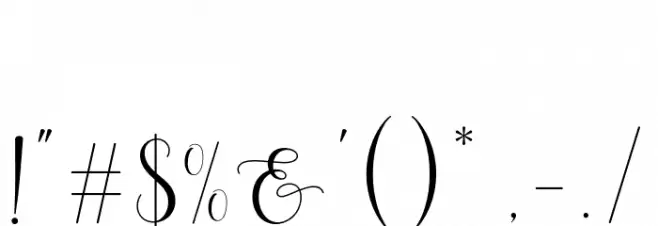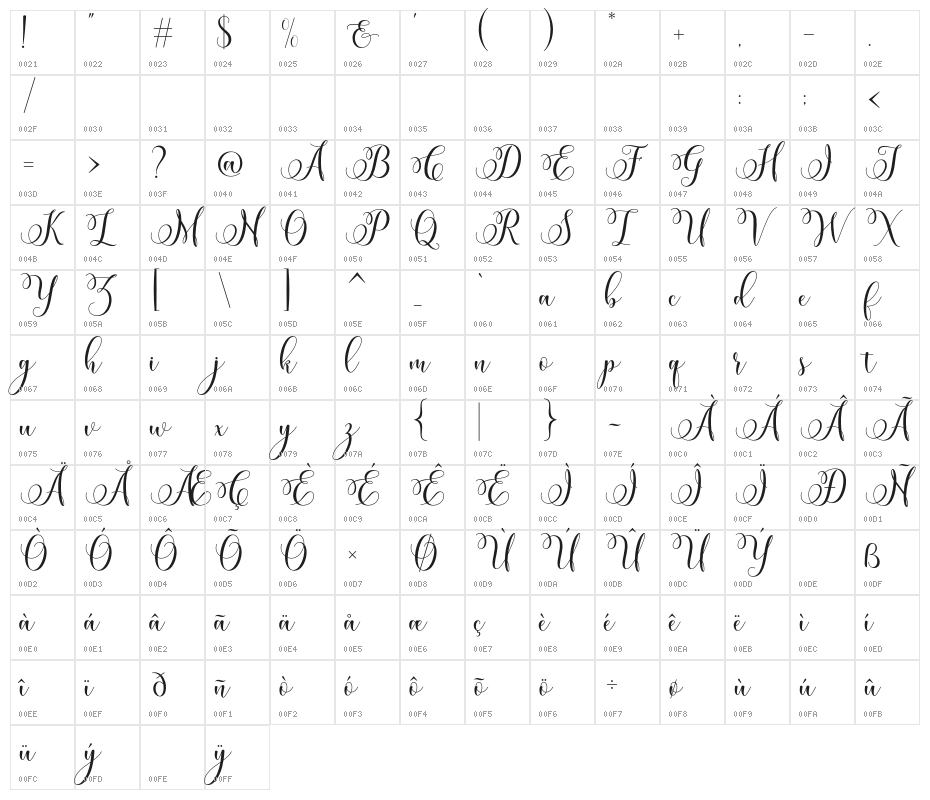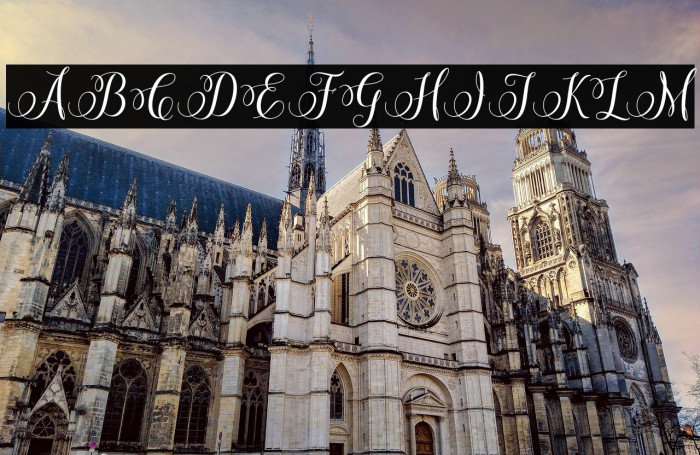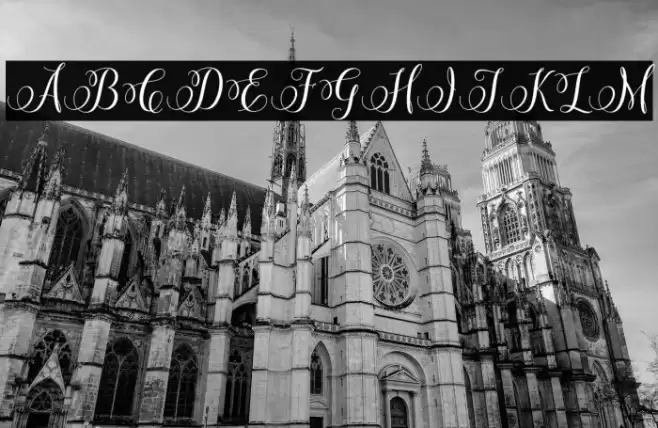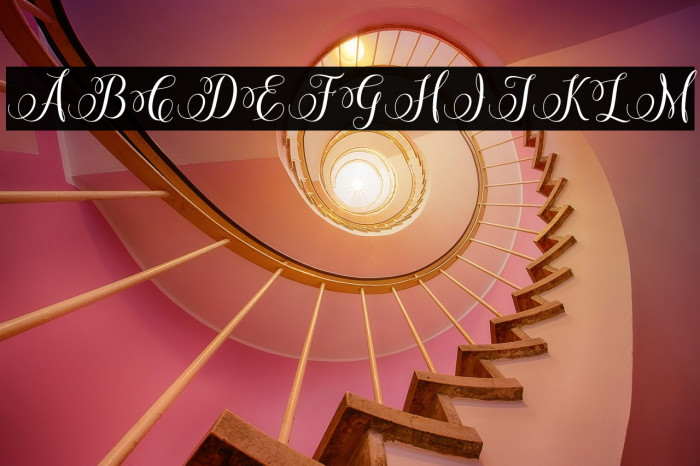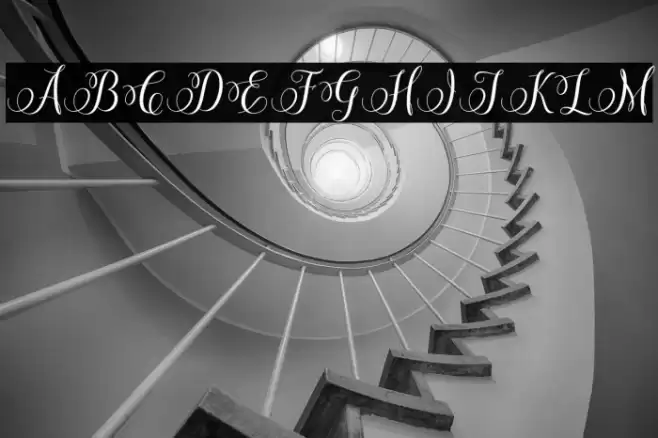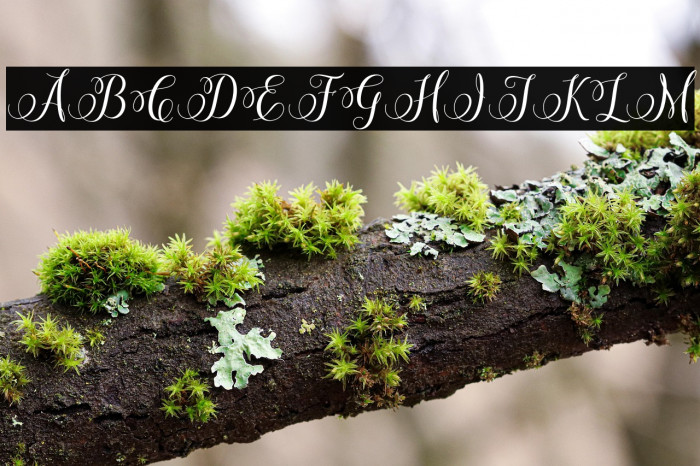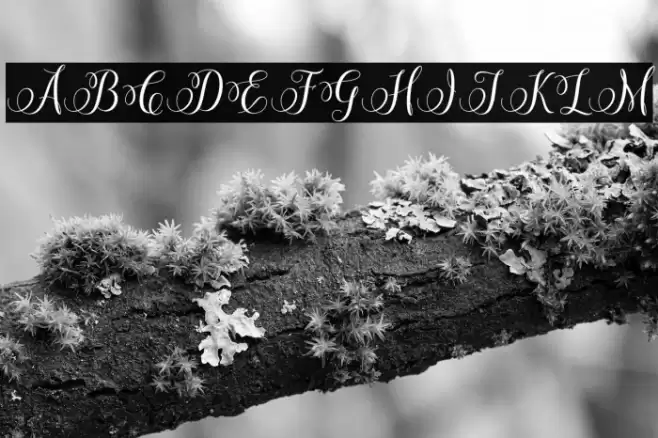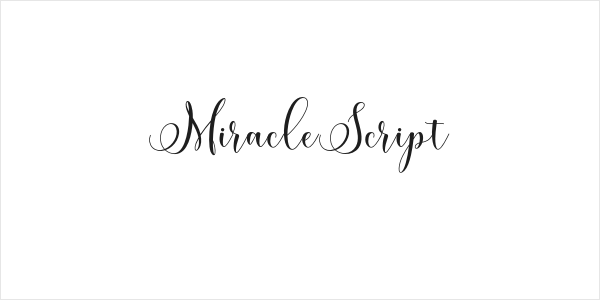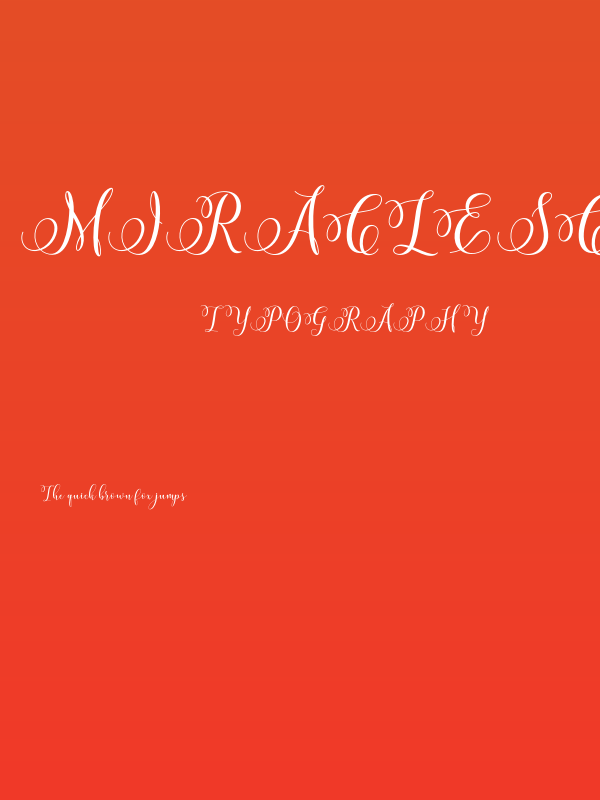
This elegant script font features flowing, interconnected letters with a graceful and sophisticated appearance. The uppercase letters are adorned with intricate swashes and flourishes, adding a touch of luxury and refinement. The lowercase letters maintain a smooth and fluid connection, enhancing the overall harmony of the text. The font's design is characterized by its high contrast between thick and thin strokes, which adds to its dramatic and eye-catching appeal. The special characters, including punctuation and symbols, are designed to complement the script style, ensuring a cohesive look across all text elements.